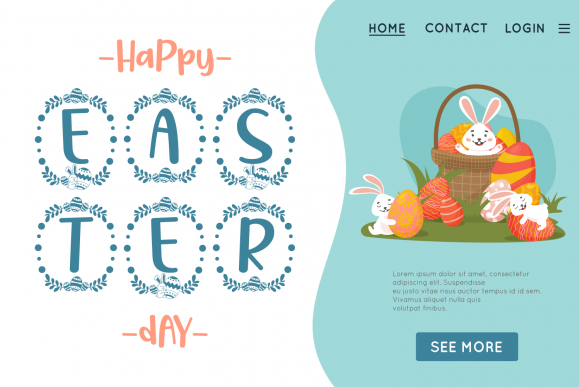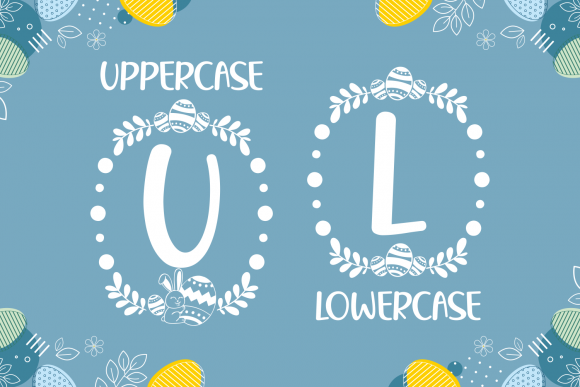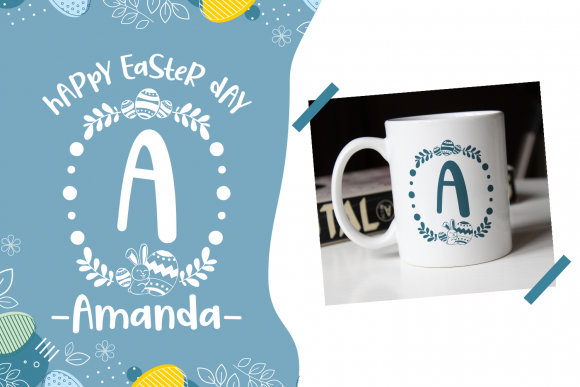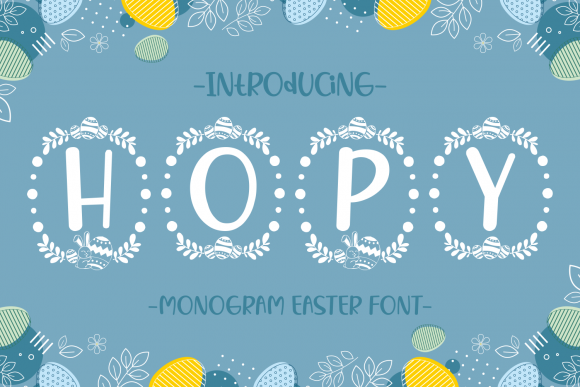
Introduction to Hopy Font
Hopy is a cool, light and friendly decorative font.
Simple but with a strong visual effect, this font will instantly make your creation more appealing than any others .
Hopy Font offers exceptional quality and versatility, making it a valuable addition to your design toolkit. Whether you’re creating for personal projects or commercial use, Hopy Font delivers professional results.